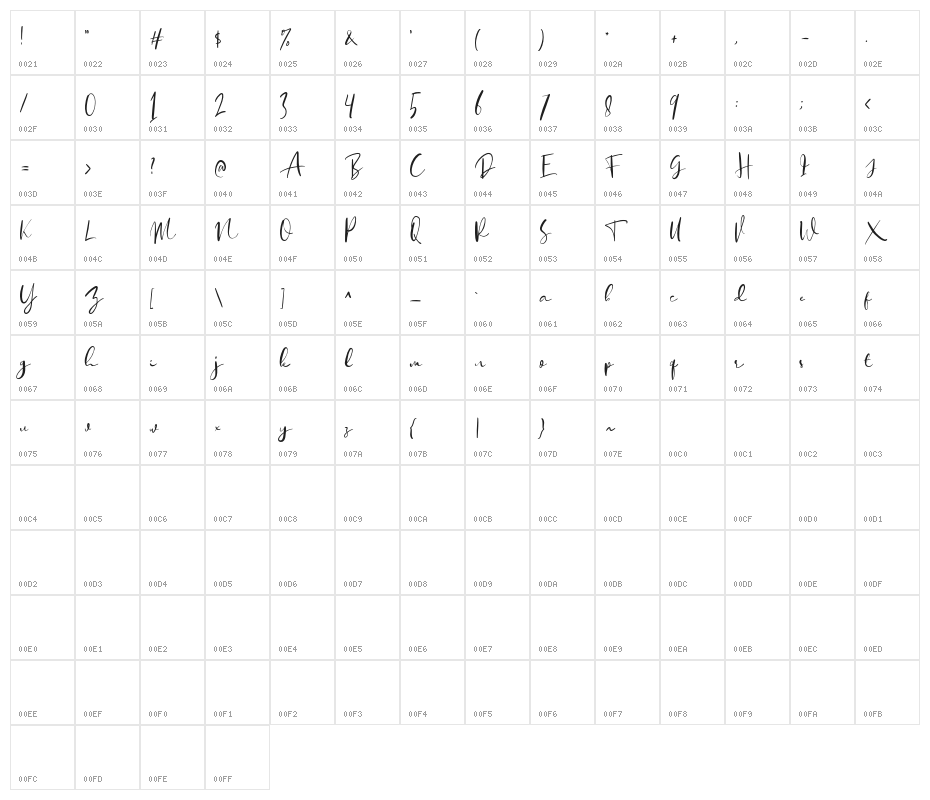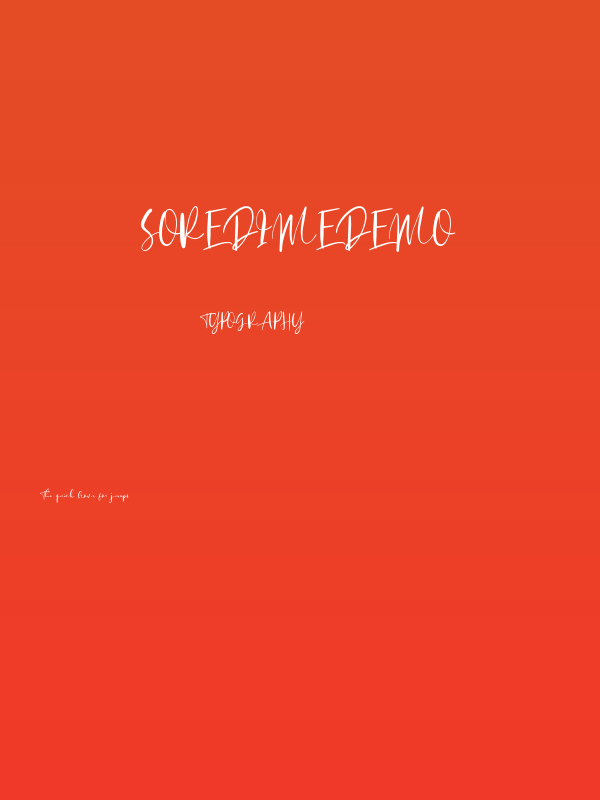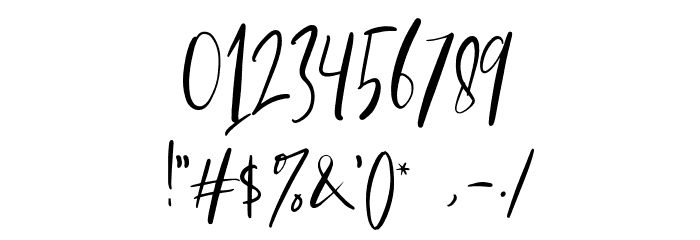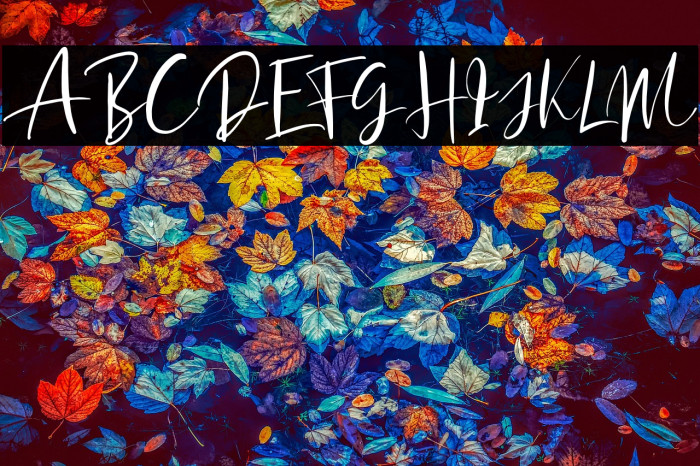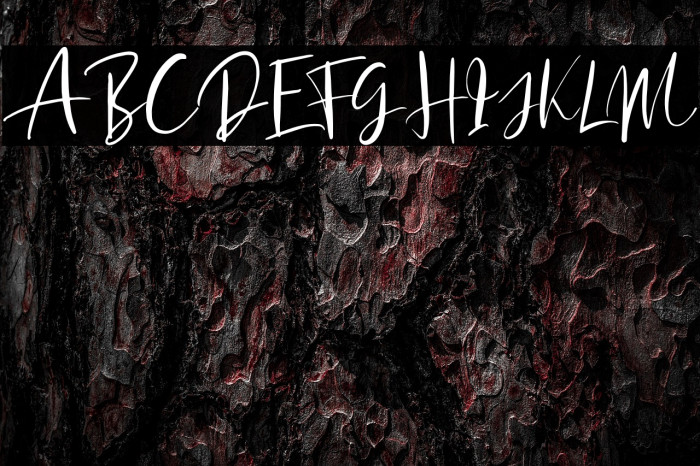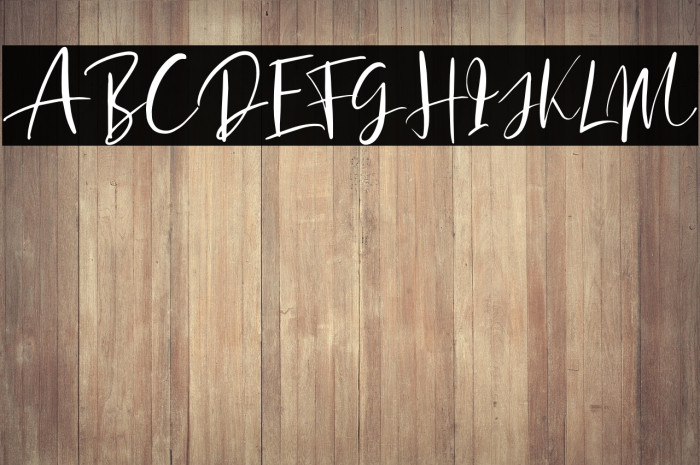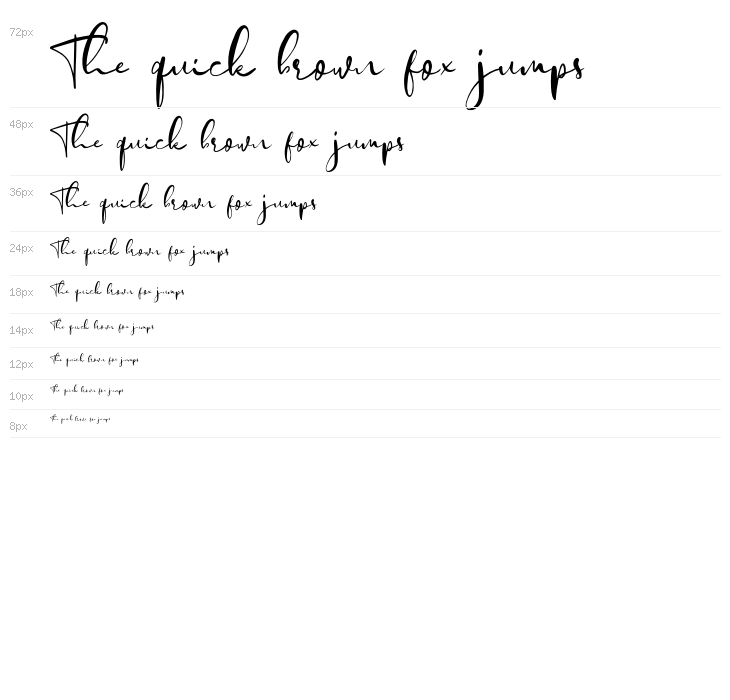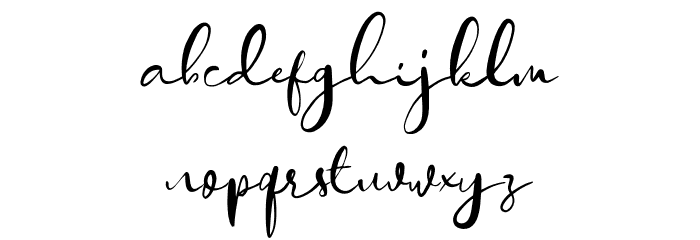
SoredimeDEMO Font
SoredimeDEMO Description
This font features a dynamic and expressive handwritten style, characterized by its fluid and flowing letterforms. The uppercase letters exhibit a playful yet elegant flair, with varying stroke widths that add a sense of movement and energy. The lowercase letters maintain a cohesive look with a slightly more restrained flow, ensuring readability while preserving the artistic touch. The numerals are consistent with the overall style, offering a harmonious blend of curves and angles. Special characters are thoughtfully designed to complement the alphabet, enhancing the font's versatility. This font is ideal for projects that require a personal and artistic touch, such as invitations, greeting cards, and branding materials.